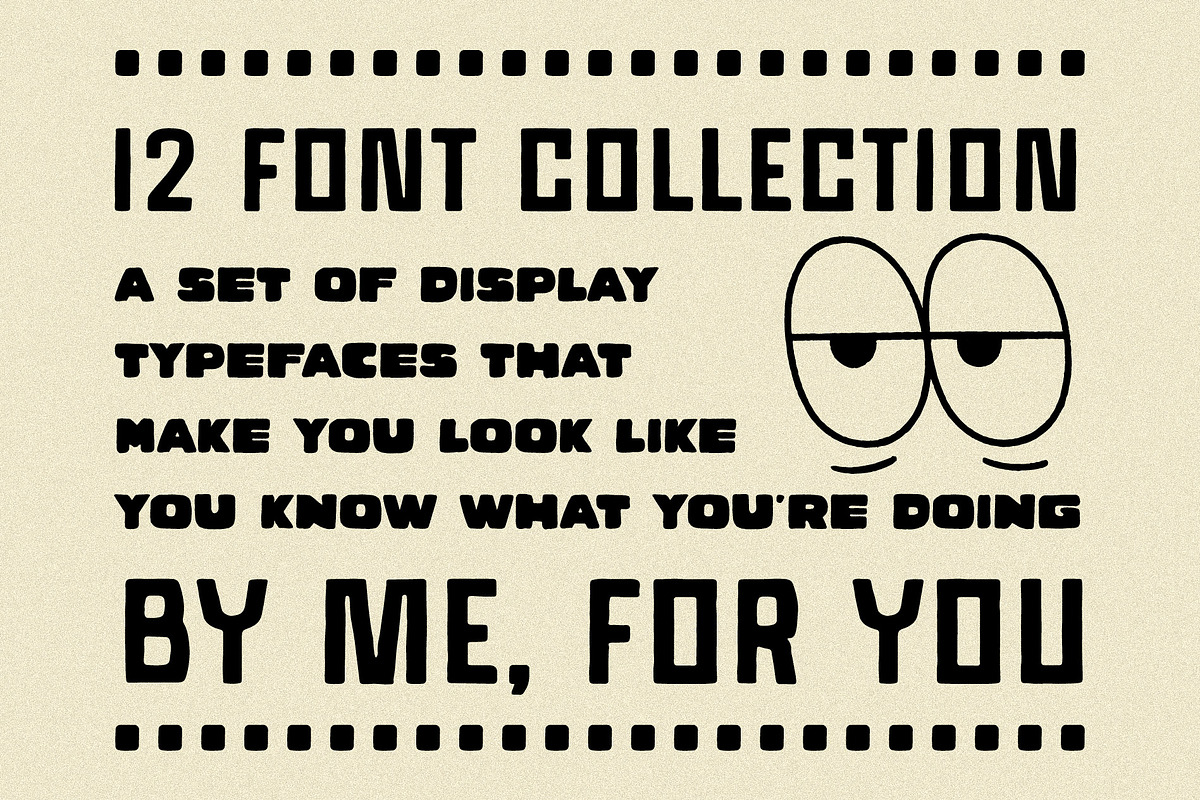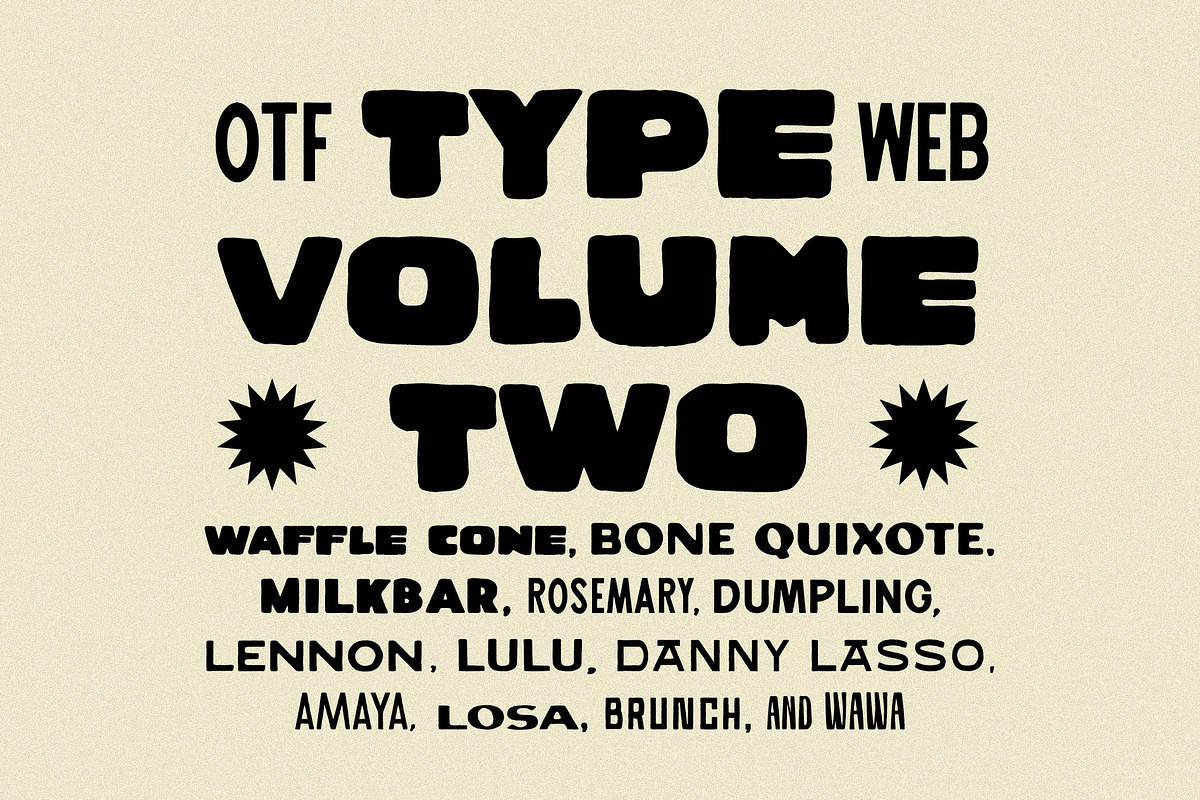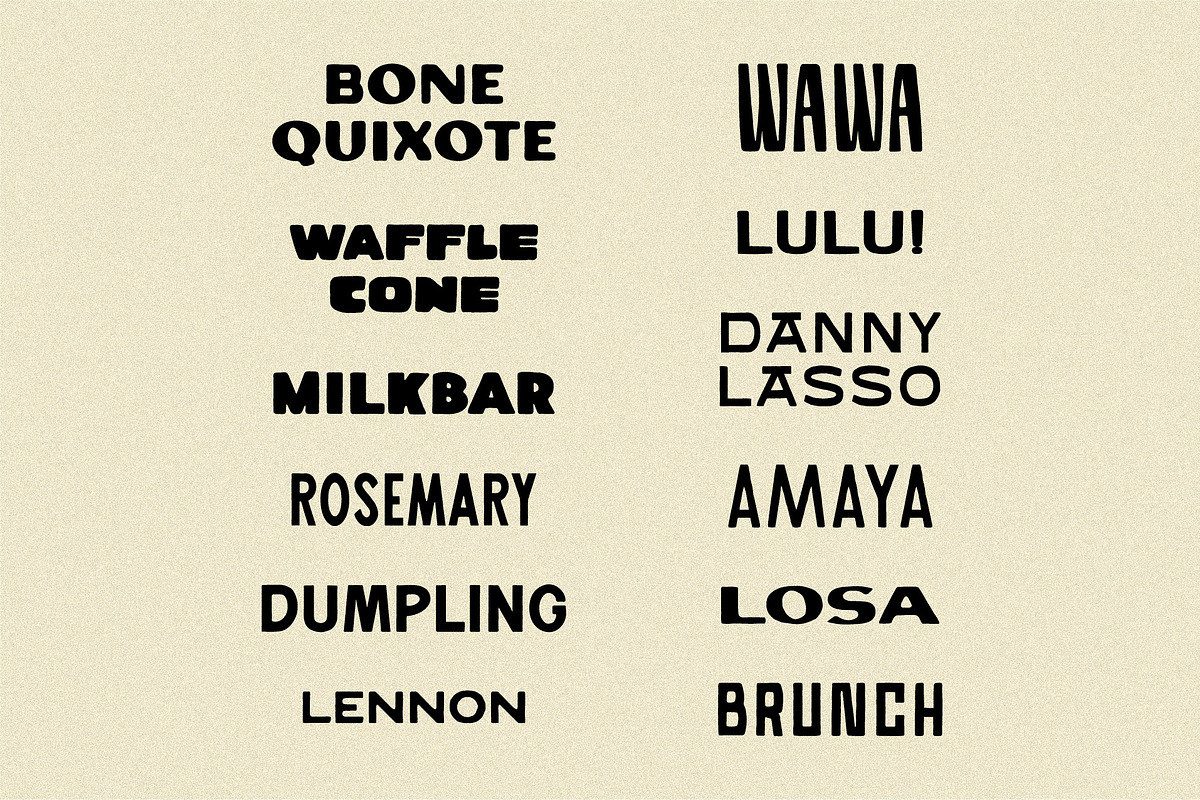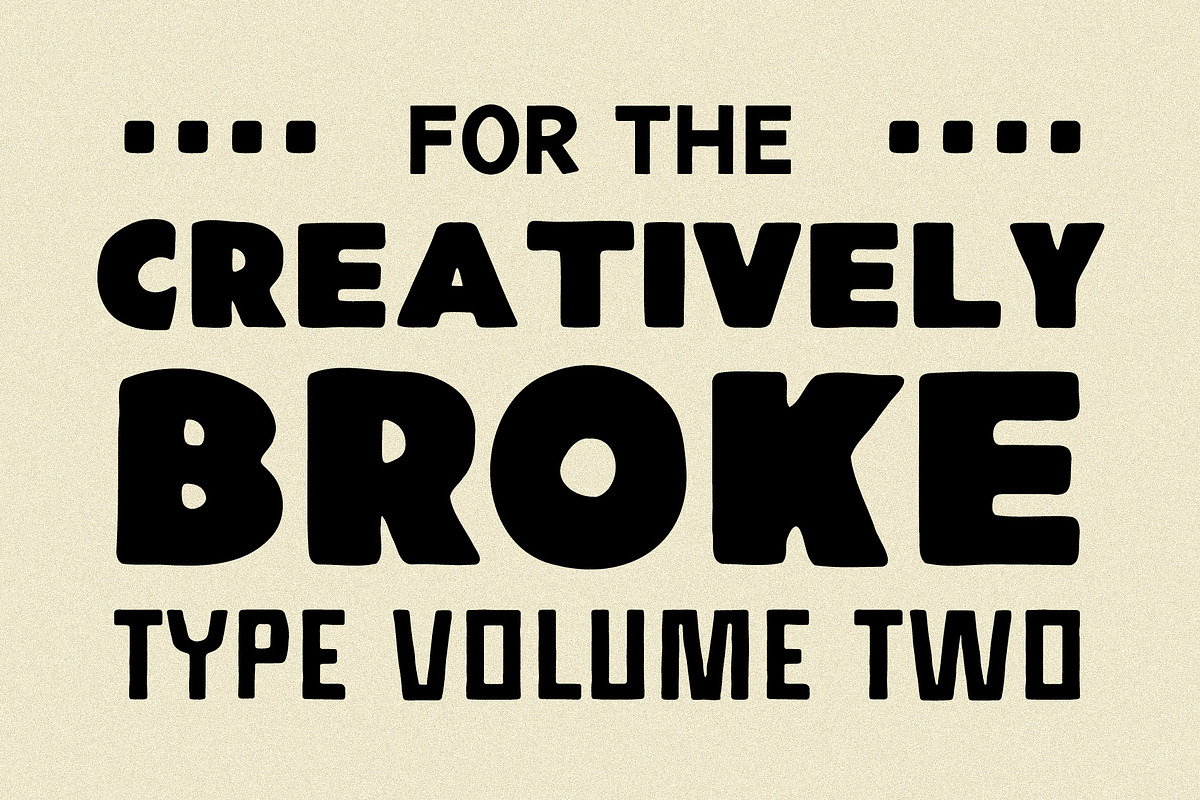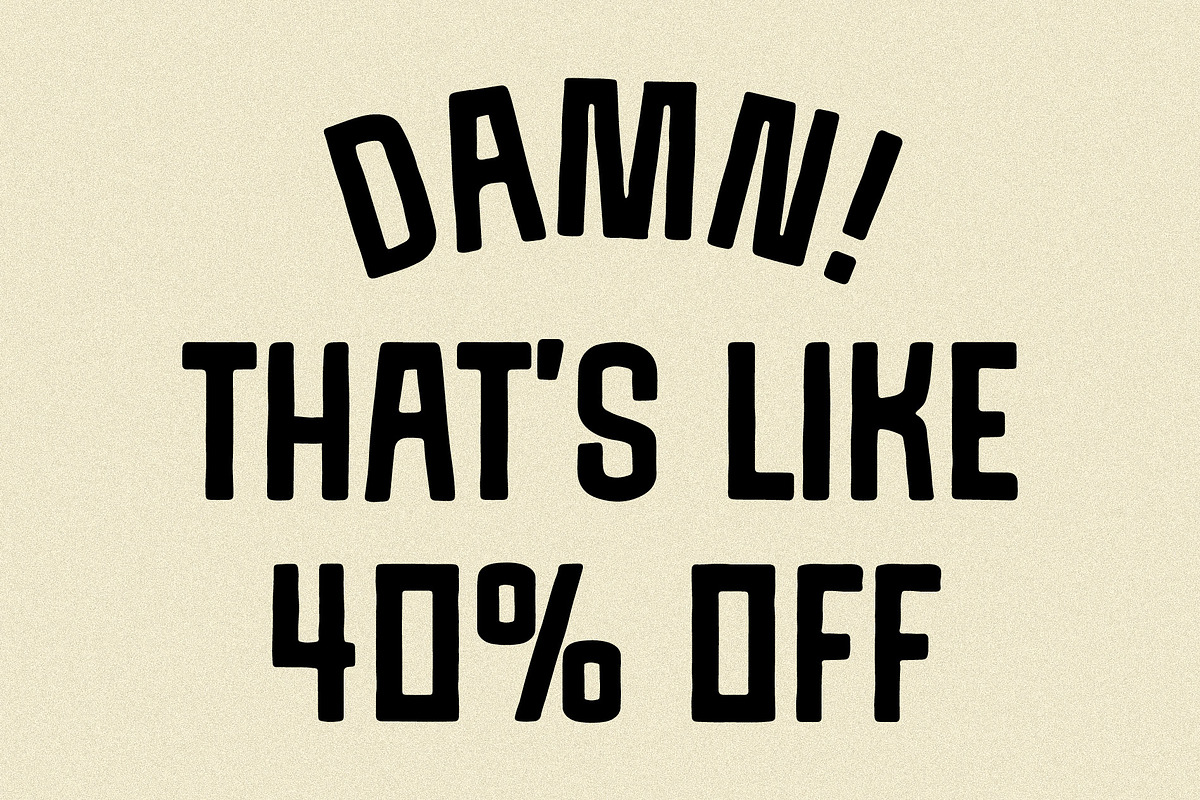
Type Volume Two
Volume 2 has twelve typefaces that somehow work for everything — marketing material, crypto rug-pulls, passive-aggressive social posts. If you only install one pack this year, this one will at least help you look like you had a plan.
Type Volume Two: Waffle Cone, Bone Quixote, Milkbar, Rosemary, Wawa, Dumpling, Lennon, Lulu!, Amaya, Losa, Danny Lasso and Brunch Each font Includes: Uppercase letters and digits Full punctuation Support for 20-69 languages.